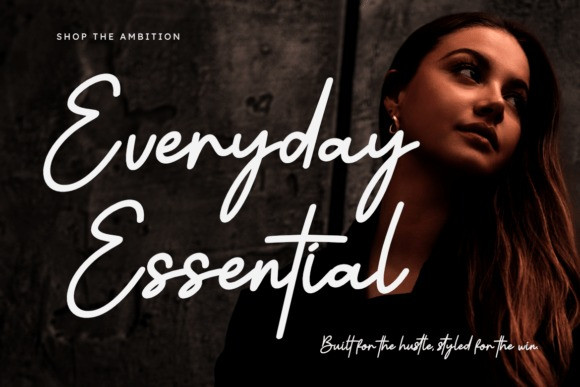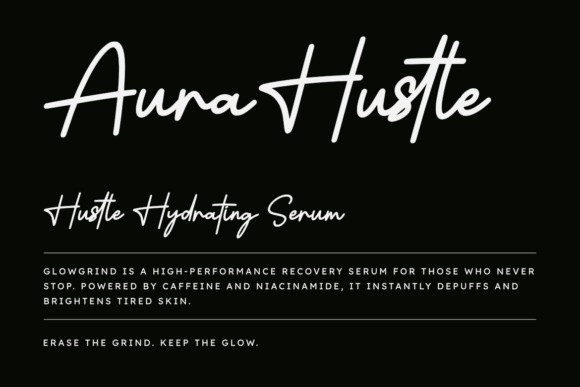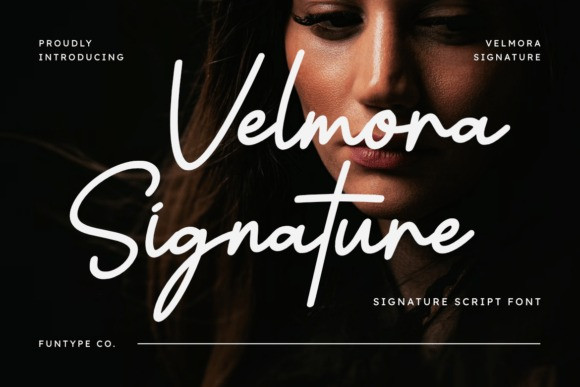
Velmora Signature Handwritten Font
Velmora Signature Handwritten Font is a sophisticated and stylish signature script font designed to add a personal, high-end touch to your creative work.With its fluid strokes and authentic hand-drawn feel, Velmora Signature captures the essence of a modern signature, making it an ideal choice for brands that want to convey exclusivity and elegance.
This font is perfect for designers looking to create a memorable visual identity. Whether it’s for luxury branding, wedding stationery, or professional watermarks, Velmora Signature delivers a chic and effortless aesthetic. Its versatile nature allows it to stand out beautifully in both digital and print media, ensuring your designs feel intimate and professionally crafted.Access all alternates and flourishes with ease—thanks to PUA encoding, no design tools are required.